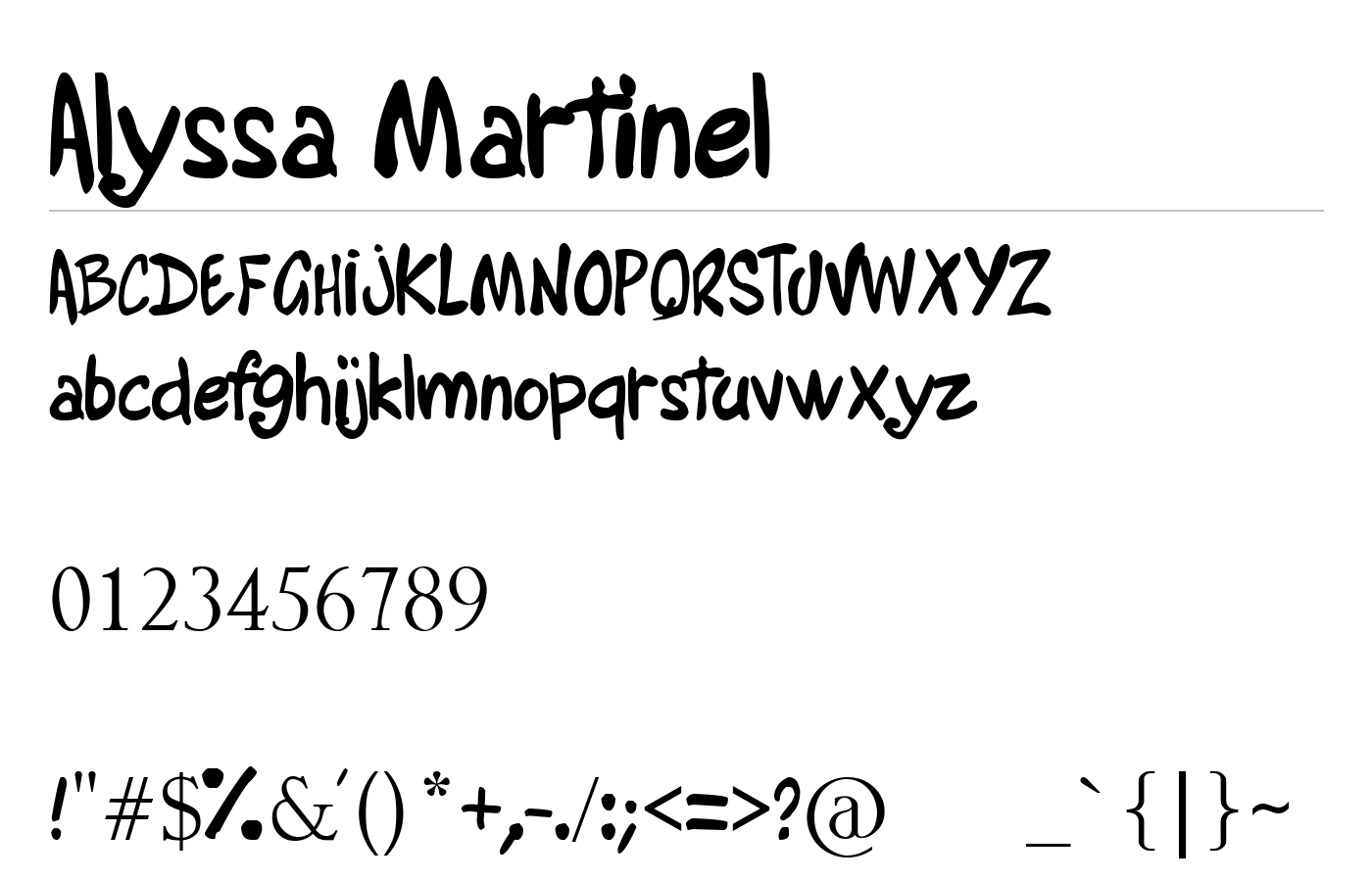
Alyssa Martinel is a playful, informal handwritten sans serif font characterized by its casual, slightly uneven letterforms with a bold, friendly feel. Its moderate x-height and smooth, rounded strokes give it an approachable, youthful personality ideal for creative and lighthearted designs. This font works best for branding, posters, and social media where a warm, hand-crafted touch is desired.
Alyssa Martinel Font
About Alyssa Martinel Font